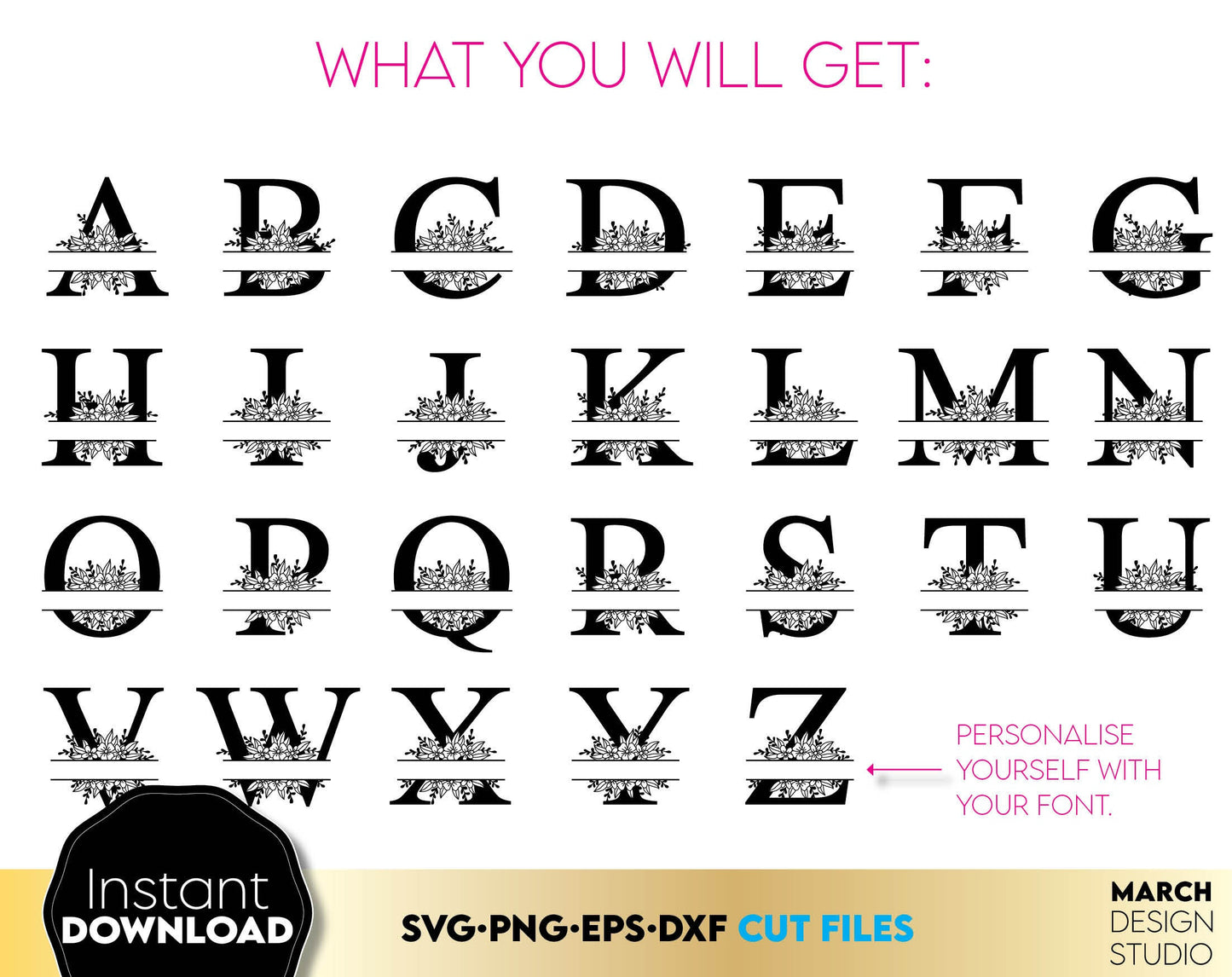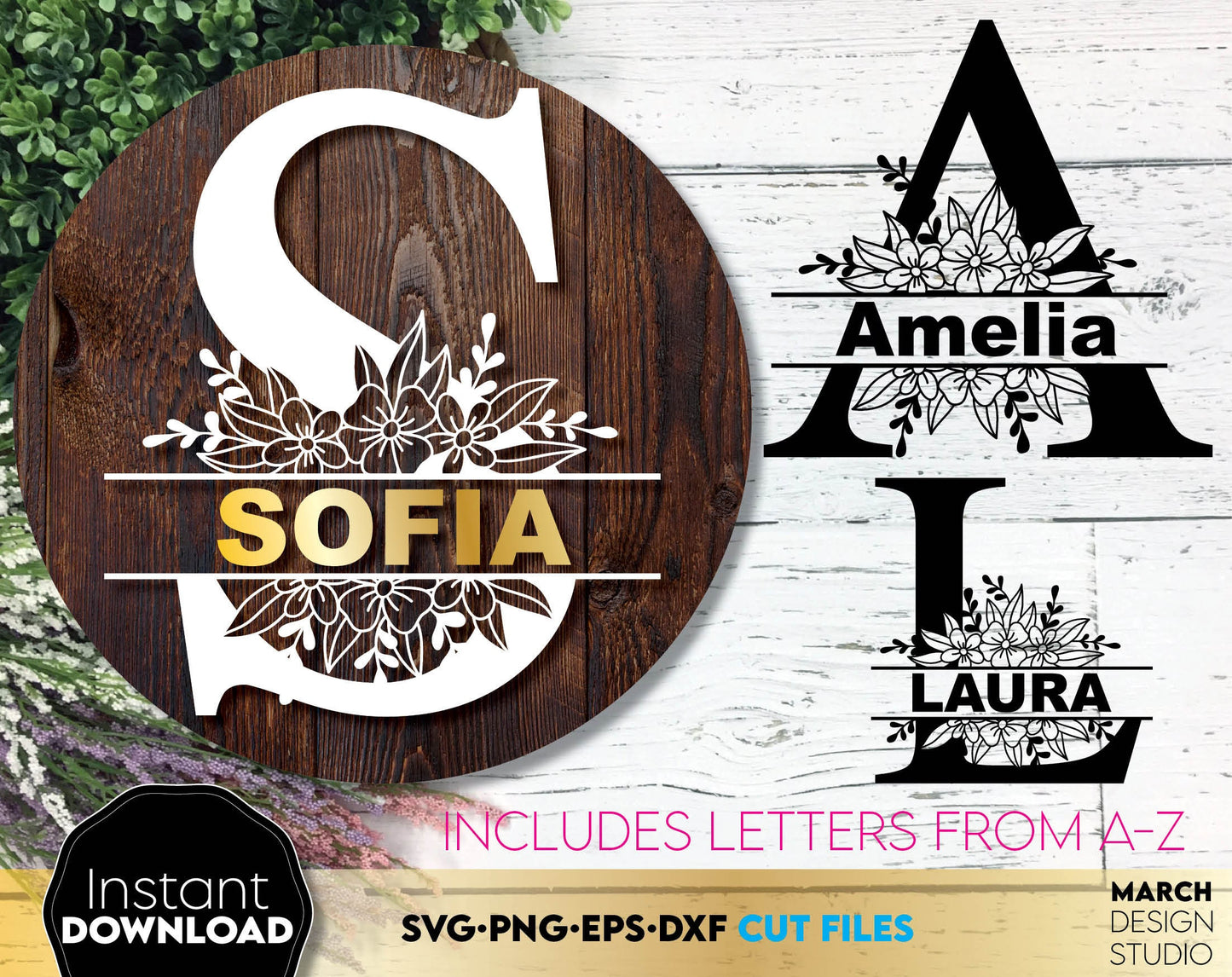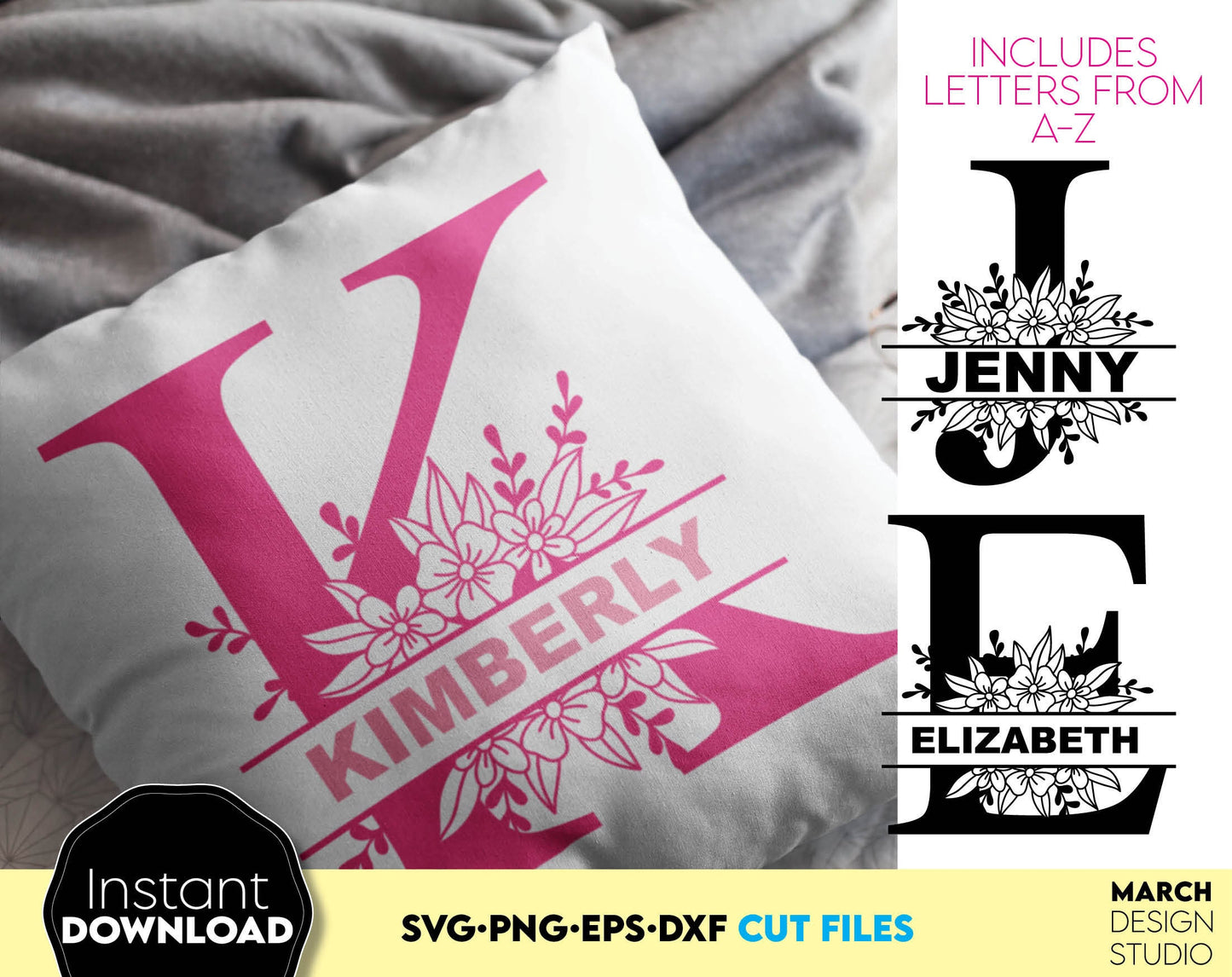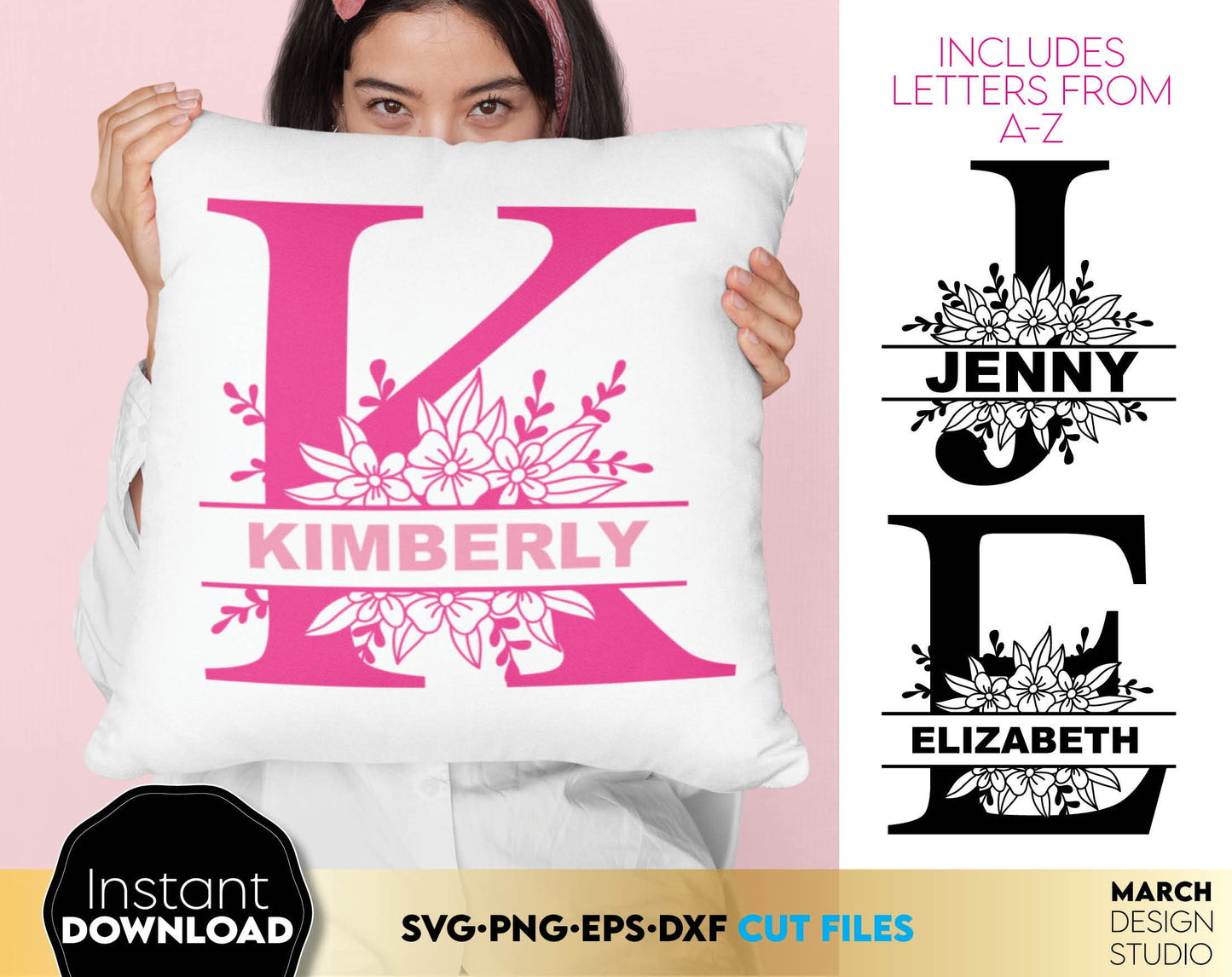
Split Monogram SVG | Monogram fonts SVG | Family Monogram SVG | Split Letters svg | Wedding Monogram svg | Floral Monogram svg png
Split Monogram fonts are a great design that can be used to create great gifts. Split Monograms wrapped in flowers are useful for creating wedding gifts, family name monograms or as a personal birthday gift.